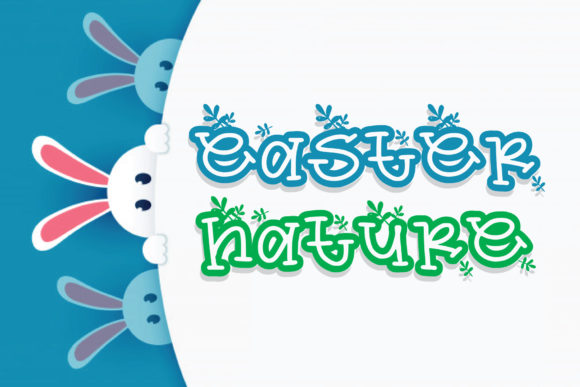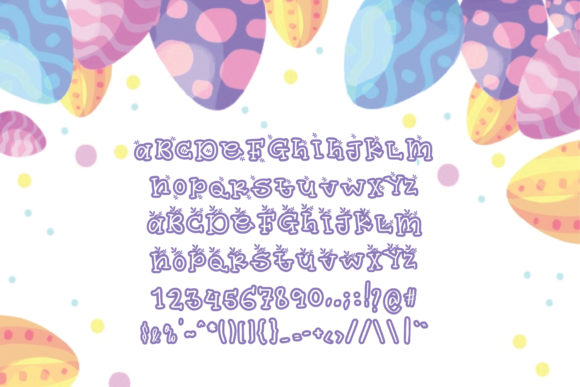
Easter Day Font: A Fun and Quirky Display Font for Kids’ Designs
Easter Day is just around the corner, and with it comes the excitement of springtime, colorful eggs, and adorable bunnies. For designers and crafters, this holiday offers a plethora of creative opportunities to create fun and engaging designs for kids. One of the key elements in making these designs stand out is the font used. Introducing Easter Day Font, a fun and quirky display font that’s perfect for children-themed designs, especially when combined with bright colors.
What is Easter Day Font?
Easter Day Font is a unique and playful display font designed specifically for Easter-themed and kids’ designs. Its quirky and fun style makes it an ideal choice for creating eye-catching titles, headings, and captions that are sure to delight children and parents alike. The font features bold lines, irregular shapes, and a bouncy feel that’s reminiscent of Easter eggs and bunnies.
Characteristics of Easter Day Font
Easter Day Font has several characteristics that make it a standout font for kids’ designs:
- Fun and quirky style: The font’s playful design makes it perfect for creating fun and engaging designs for kids.
- Bold lines and irregular shapes: The font’s bold lines and irregular shapes give it a unique and eye-catching feel.
- Bouncy feel: The font’s bouncy feel is reminiscent of Easter eggs and bunnies, making it perfect for Easter-themed designs.
- Perfect for display text: Easter Day Font is designed specifically for display text, making it ideal for titles, headings, and captions.
Why Use Easter Day Font?
There are several reasons why designers and crafters should consider using Easter Day Font for their kids’ designs:
- Perfect for kids’ designs: The font’s fun and quirky style makes it perfect for creating designs for kids, including Easter-themed designs, children’s party invitations, and kids’ educational materials.
- Easy to read: Despite its playful design, Easter Day Font is easy to read, making it perfect for display text.
- Versatile: The font can be used for a variety of design projects, from digital designs to print materials.
- Bright and colorful: Easter Day Font looks amazing when paired with bright and bold colors, making it perfect for creating eye-catching designs.
Design Ideas Using Easter Day Font
Here are some design ideas that showcase the versatility of Easter Day Font:
- Easter-themed party invitations: Use Easter Day Font to create fun and playful party invitations that feature Easter eggs, bunnies, and other springtime elements.
- Kids’ educational materials: Use the font to create engaging and interactive educational materials, such as alphabet charts, number lines, and shape sorters.
- Digital designs: Use Easter Day Font to create digital designs, such as social media graphics, blog posts, and email newsletters, that feature Easter-themed and kids’ content.
- Print materials: Use the font to create print materials, such as posters, flyers, and brochures, that feature Easter-themed and kids’ content.
Tips for Using Easter Day Font
Here are some tips for using Easter Day Font effectively:
- Pair with bright colors: Easter Day Font looks amazing when paired with bright and bold colors, so don’t be afraid to experiment with different color combinations.
- Use for display text: Easter Day Font is designed specifically for display text, so use it for titles, headings, and captions.
- Experiment with different sizes: The font looks great in different sizes, so experiment with different sizes to create visual interest.
- Combine with other fonts: Easter Day Font can be combined with other fonts to create a unique and interesting design.
| Font Name | Easter Day Font |
| Author | goodigital |
Easter Day Font is a fun and quirky display font that’s perfect for kids’ designs, especially when combined with bright colors. Its bold lines, irregular shapes, and bouncy feel make it an ideal choice for creating eye-catching titles, headings, and captions. With its versatility, ease of use, and fun style, Easter Day Font is a must-have font for designers and crafters who create Easter-themed and kids’ designs.